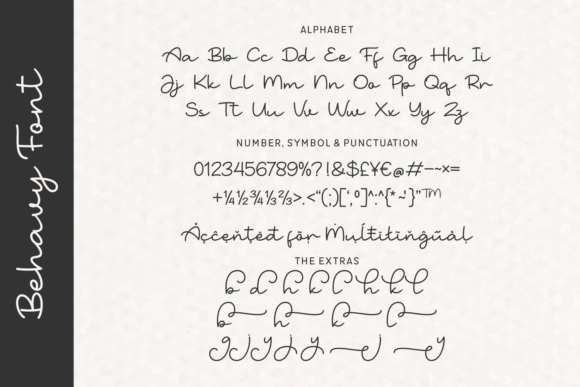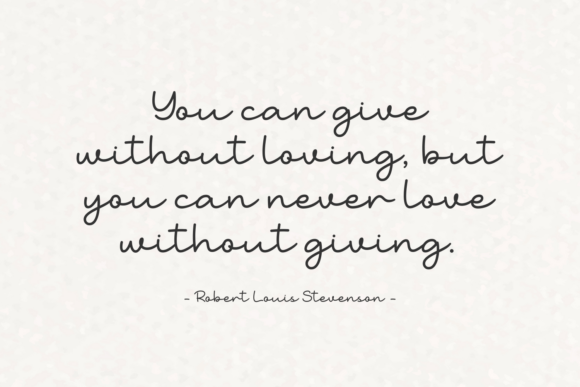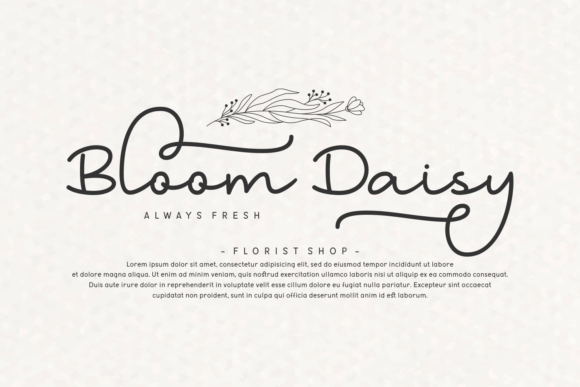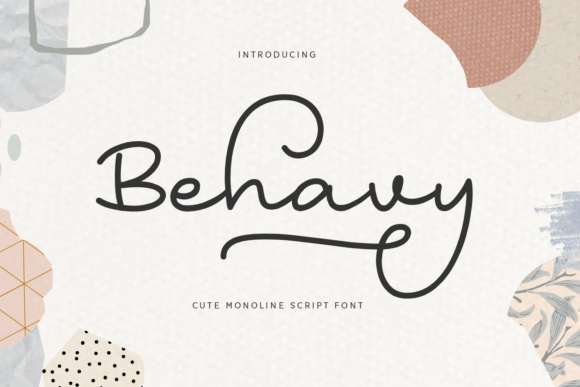
Introducing Behavy Font: The Charming Monoline Script Font for Creative Projects
Are you a designer, crafter, or DIY enthusiast looking for a font that can add a touch of personality to your projects? Look no further than Behavy, a beautiful monoline script font that is sure to capture your heart. With its smooth, flowing letters and playful vibe, Behavy is the perfect choice for a wide range of creative endeavors, from greeting cards and invitations to personal projects and crafts.
The Characteristics of Behavy Font
Behavy is a monoline script font, which means that it features smooth, connected letters with a consistent line width. This gives the font a clean and elegant look that is both modern and sophisticated. The letters in Behavy are carefully crafted to have a playful and friendly vibe, making it perfect for projects that require a personal touch.
One of the standout features of Behavy is its elegant curves and clean lines. The font has a warm and inviting feel, making it perfect for projects that require a touch of sweetness and charm. Whether you’re designing a greeting card, invitation, or personal project, Behavy is sure to add a touch of personality to your text.
Uses for Behavy Font
Behavy is a versatile font that can be used for a wide range of creative projects. Here are just a few ideas to get you started:
- Greeting Cards: Behavy is perfect for creating custom greeting cards for special occasions like birthdays, weddings, and holidays.
- Invitations: Whether you’re planning a party, wedding, or baby shower, Behavy is a great choice for creating invitations that are both elegant and playful.
- Personal Projects: Behavy is a great choice for personal projects like scrapbooking, journaling, and crafting.
- Signage: Behavy can also be used for signage, including store signs, event signs, and directional signs.
Why Choose Behavy Font?
So why choose Behavy font for your next project? Here are just a few reasons:
- Unique and Eye-Catching: Behavy is a unique and eye-catching font that is sure to stand out from the crowd.
- Easy to Read: Despite its playful vibe, Behavy is easy to read and can be used for both short and long pieces of text.
- Versatile: Behavy can be used for a wide range of creative projects, from greeting cards to signage.
- Modern and Sophisticated: Behavy has a modern and sophisticated look that is perfect for designers and crafters who want to add a touch of elegance to their projects.
Tips for Using Behavy Font
Here are a few tips for using Behavy font in your next project:
- Use it for Headings: Behavy is perfect for headings and titles, where its playful vibe can really shine.
- Pair it with Other Fonts: Behavy can be paired with other fonts to create a unique and interesting look.
- Experiment with Colors: Behavy looks great in a variety of colors, so don’t be afraid to experiment and find the perfect hue for your project.
In conclusion, Behavy font is a charming monoline script font that is perfect for designers, crafters, and DIY enthusiasts who want to add a touch of personality to their projects. With its smooth, flowing letters and playful vibe, Behavy is sure to capture your heart and inspire your creativity. Whether you’re designing a greeting card, invitation, or personal project, Behavy is a great choice for adding a touch of sweetness and charm to your text.
So why not give Behavy a try? With its unique and eye-catching design, ease of use, and versatility, it’s the perfect font for anyone looking to add a little something special to their creative projects.